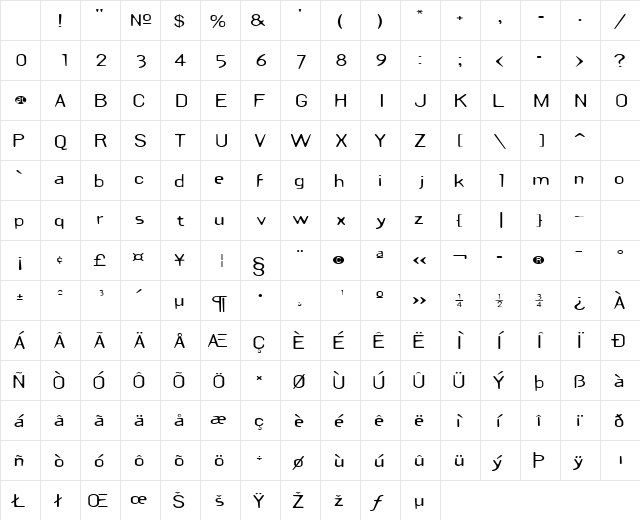
Complete DraftPlateExtended Regular glyph index. Displaying only characters natively supported by DraftPlateExtended Regular font.
DraftPlateExtended is a composed and adaptable typeface that performs quietly and consistently across a wide range of design contexts.